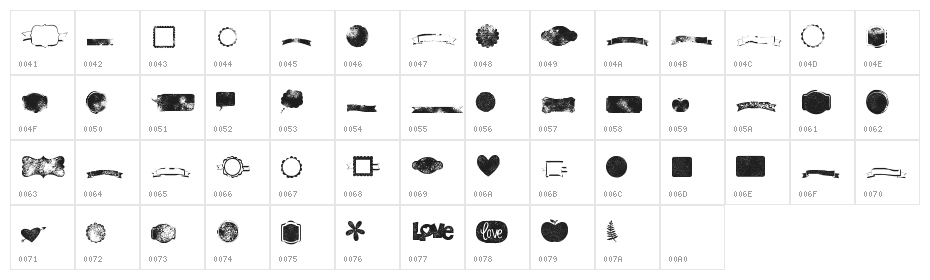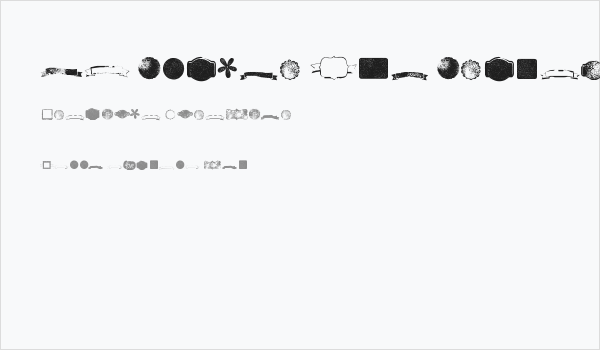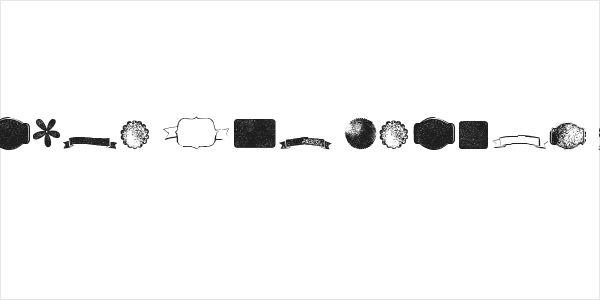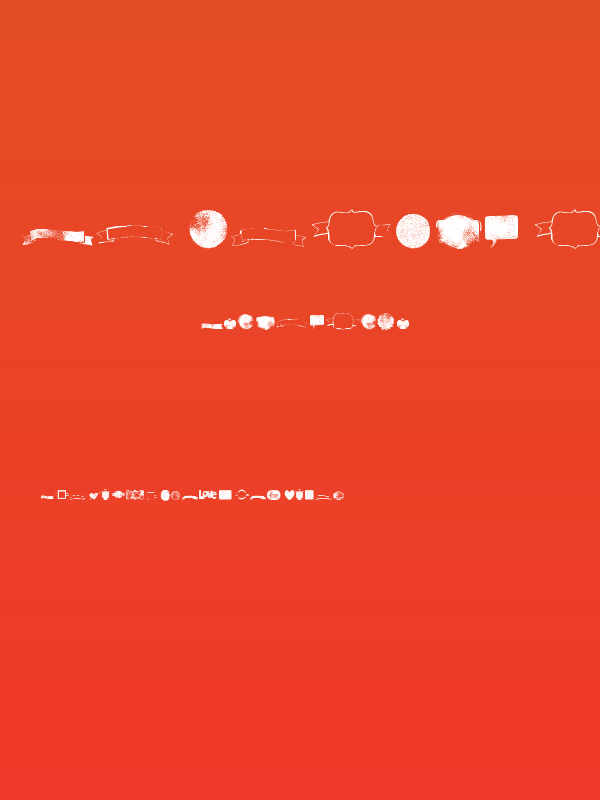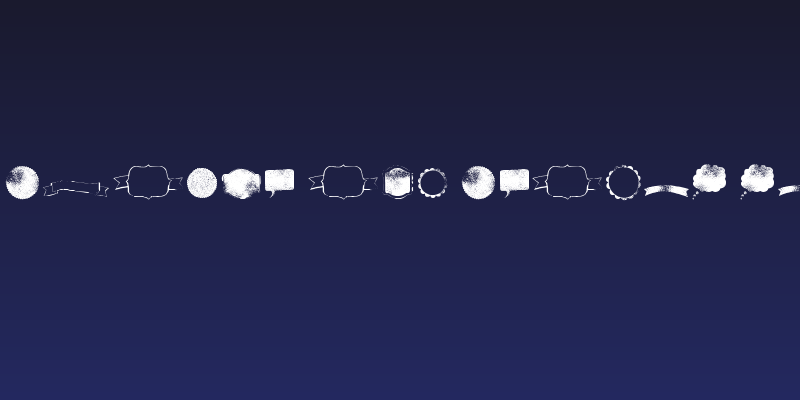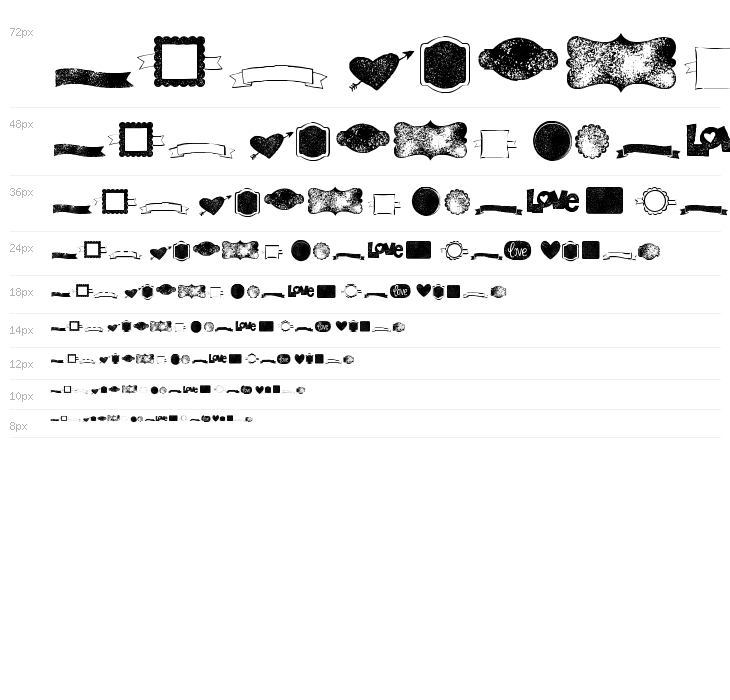
KG Flavor And Frames Seven Font
KG Flavor And Frames Seven Description
A decorative dingbat set featuring a variety of hand-drawn frames, banners, shapes, hearts, apples, and textured elements with a distressed, chalkboard-like appearance. The glyphs are highly stylized and intended for embellishing designs rather than for text.
| Overall Style | Decorative, Hand-drawn, Chalkboard |
| Use Case | Embellishments, Decorative accents, Craft projects |
| Proposed Projects | Scrapbooking, invitations, labels, classroom materials, digital planners, decorative headings. |